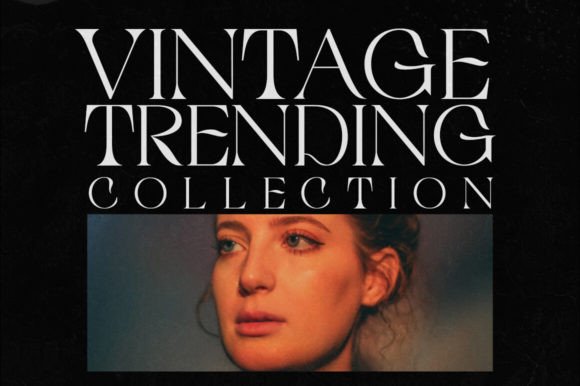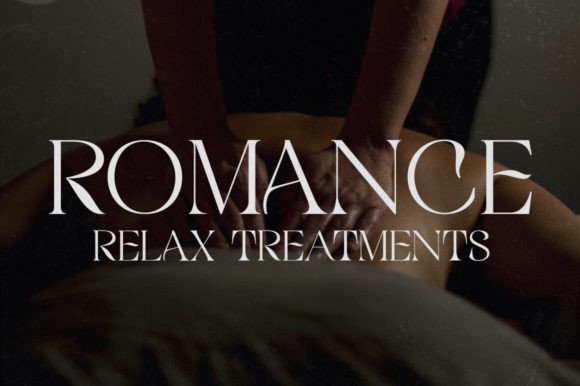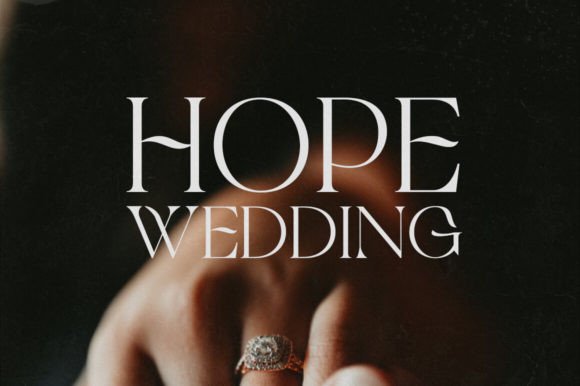
Introduction to Rigata Font
Rigata is an elegant and luxurious serif font perfect for invitations, logos, branding, greetings, social media themes and wedding invitation designs.
It is also a great typeface for titles because of its smooth design and attractive appearance .